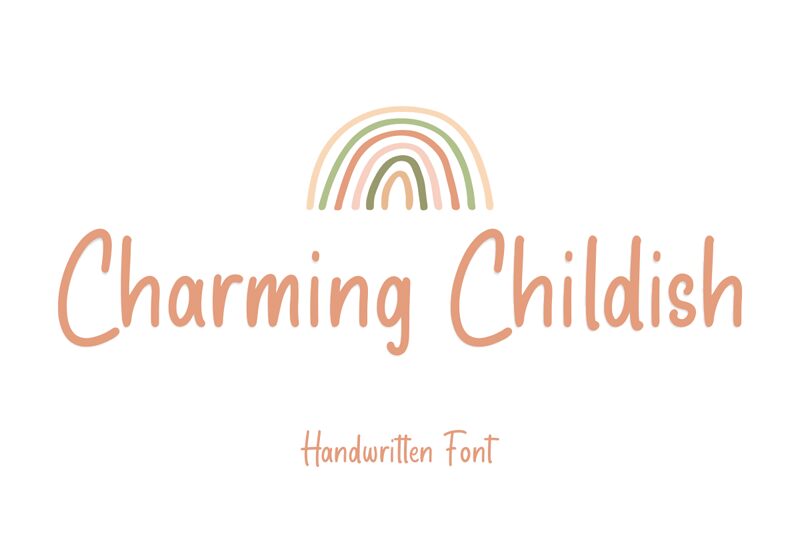
Charming Childish font by Fikryal Studio is a beautiful handwritten typeface that exudes playful whimsy. With its semi-light weight and semi-condensed width, this font is perfect for children's books, greeting cards, posters, and other creative projects that require a touch of youthful charm. The elegant curves and soft lines of the letters give Charming Childish an endearing quality that will capture the hearts of readers young and old. Whether you're designing a logo for a daycare center or creating an invitation to a baby shower, Charming Childish is the perfect choice for adding a touch of delightful innocence to your project.